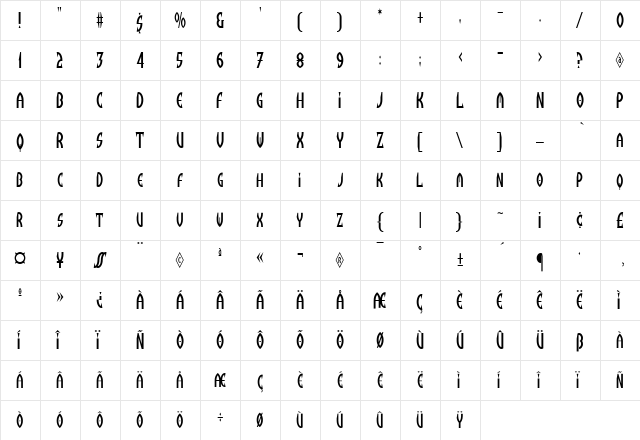
Devit Medium Font Preview
Devit Medium
Devit Medium Font Details
Design Context for Devit Typeface
Devit offers clean, dependable letterforms without strong stylistic allegiance, making it a practical choice for designers who need flexibility.
Pro Tip: Pair Devit with a font of contrasting weight or personality to build a more expressive typographic hierarchy.